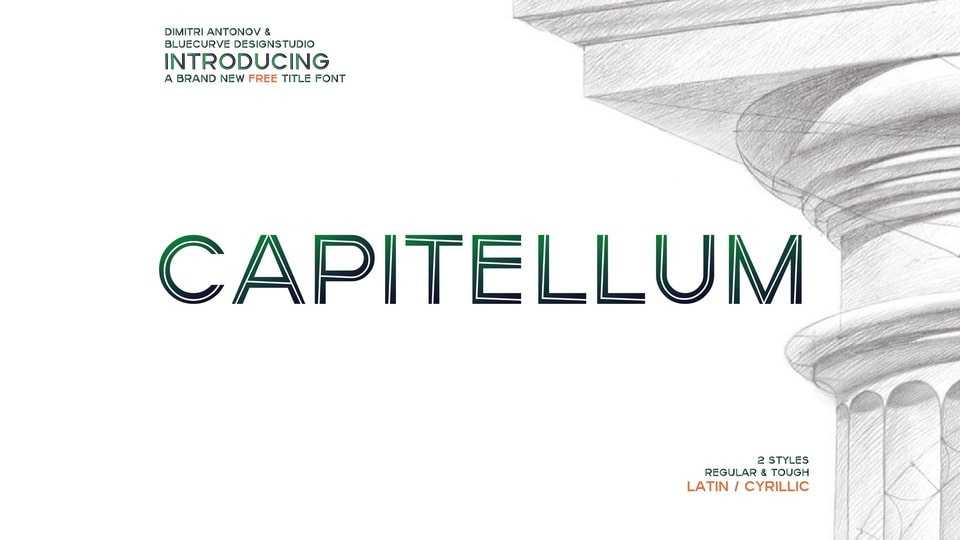
Download Capitellium font, a display typeface that combines the bold, geometric style with a unique right and downward-slanting effect. Capitellium font with its distinctive slanting effect is ideal for projects that require a sense of forward movement and modernity.
Designer: Dimitri Antonov